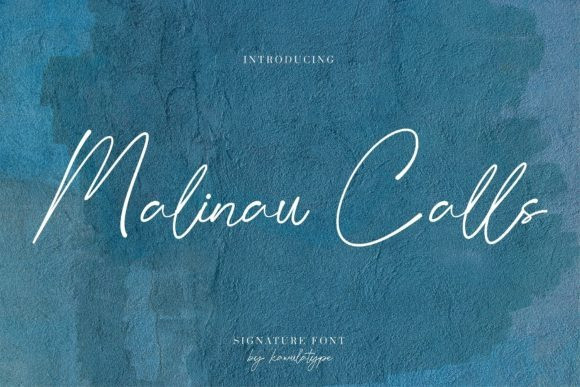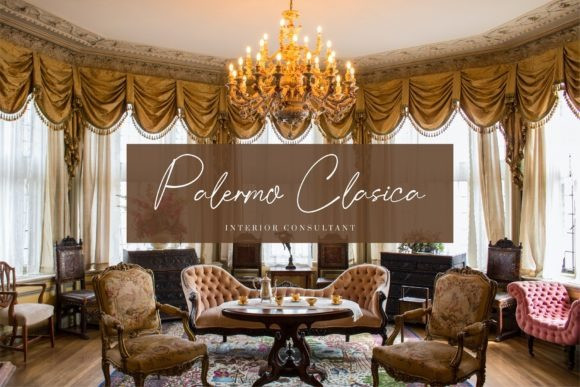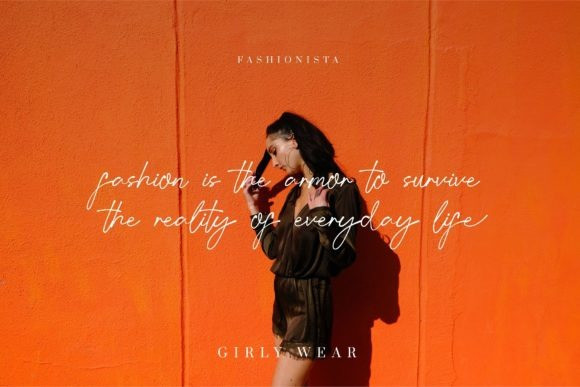
Malinau Calls Font
Malinau Calls is a stylish script font, inspired by one particular place in Kalimantan, Indonesia. This font is great for branding like ads, wedding design, social media posts, product packaging, poster, flyer, and more.